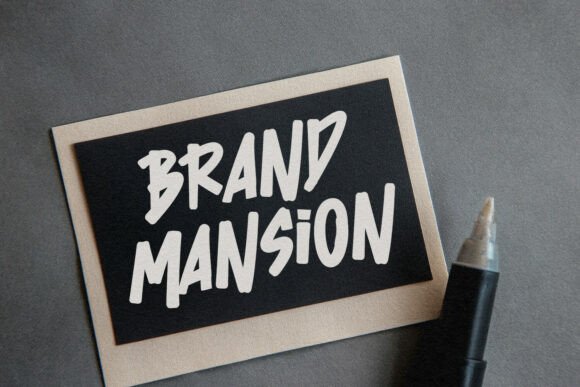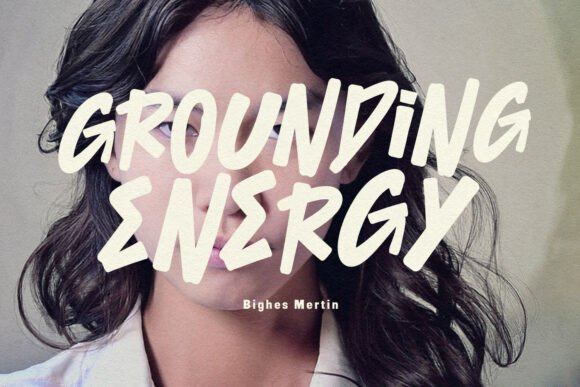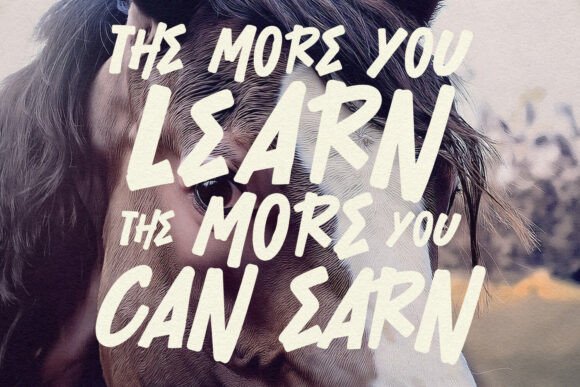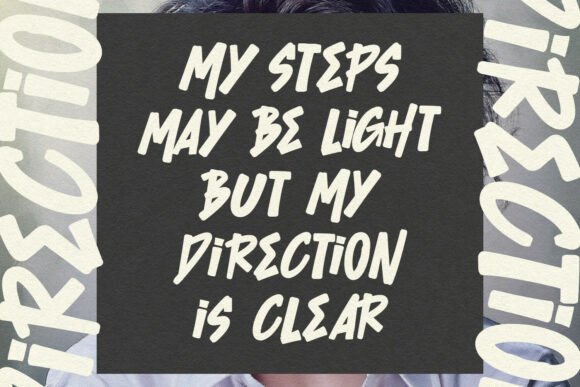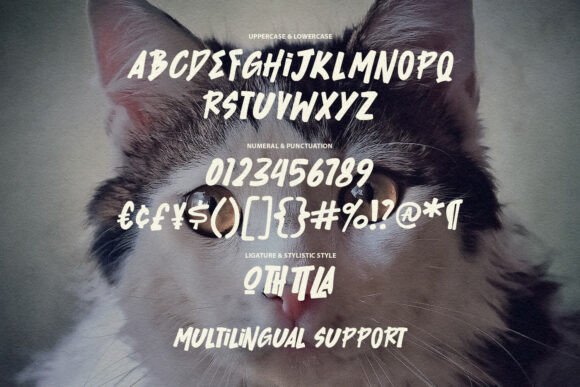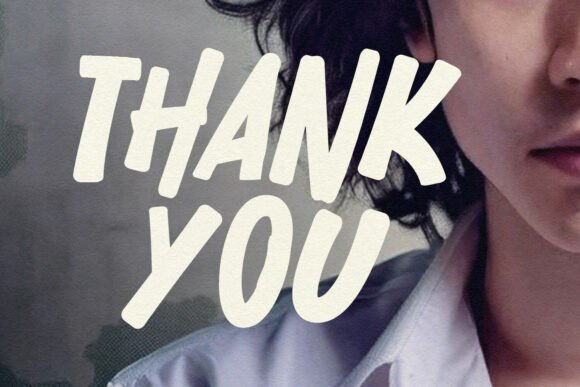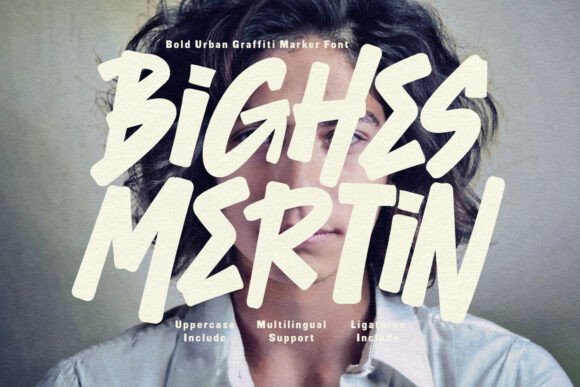
Bighes Mertin Font: Unleash the Raw Energy of Street Culture in Your Designs
Are you tired of using the same old fonts in your designs? Do you want to add a touch of urban grit and edginess to your branding, posters, album covers, or skate culture graphics? Look no further than the Bighes Mertin font, a bold and energetic display font that embodies the spontaneous art of street culture.
Inspired by Urban Graffiti
Bighes Mertin is a font that draws inspiration from the raw, unbridled energy of urban graffiti. Its thick, confident strokes and realistic marker texture evoke the feeling of a freshly sprayed tag on a city wall. This font is perfect for designers who want to capture the essence of street culture and bring a sense of rebelliousness to their designs.
Key Features of Bighes Mertin Font
• Bold Weight: Bighes Mertin features a bold weight that’s perfect for high-impact designs. Its confident strokes and edgy letterforms make it stand out in any design.
• Realistic Marker Texture: The font’s realistic marker texture adds a layer of authenticity to your designs, giving them a handmade, street-art feel.
• Multilingual Support: Bighes Mertin offers multilingual support, making it a versatile font that can be used in a variety of languages and cultures.
• Unique Ligatures: The font features unique ligatures that add an extra layer of character to your designs. These ligatures can be used to create custom text and add a touch of personality to your typography.
Perfect for High-Impact Designs
Bighes Mertin is a font that’s designed for high-impact designs. Its bold weight and edgy letterforms make it perfect for:
• Branding: Use Bighes Mertin to create bold, eye-catching logos that capture the essence of your brand.
• Hip-Hop Posters: Add a touch of street culture to your hip-hop posters with Bighes Mertin. Its bold weight and edgy letterforms are perfect for promoting concerts, festivals, or album releases.
• Music Album Covers: Give your music album covers a bold, edgy look with Bighes Mertin. Its realistic marker texture and unique ligatures make it perfect for capturing the essence of urban music.
• Skate Culture Graphics: Bighes Mertin is a font that’s deeply rooted in skate culture. Use it to create bold, eye-catching graphics that capture the spirit of skateboarding.
Tips for Using Bighes Mertin Font
Here are some tips for using Bighes Mertin font in your designs:
• Use it as a Display Font: Bighes Mertin is a display font that’s designed to make a statement. Use it as a headline or title font to add a touch of drama to your designs.
• Experiment with Colors: Bighes Mertin’s bold weight and edgy letterforms make it perfect for experimenting with different colors and textures. Try pairing it with bright, bold colors or metallic textures to add an extra layer of depth to your designs.
• Mix it with Other Fonts: Bighes Mertin can be paired with other fonts to create a unique and interesting typography. Try pairing it with a clean, sans-serif font to create a bold and modern contrast.
Bighes Mertin font is a powerful tool for designers who want to add a touch of urban grit and edginess to their designs. Its bold weight, realistic marker texture, and unique ligatures make it perfect for high-impact designs such as branding, hip-hop posters, music album covers, and skate culture graphics. With its multilingual support and versatility, Bighes Mertin is a font that can be used in a variety of creative projects. So why settle for a boring, generic font when you can unleash the raw energy of street culture with Bighes Mertin?